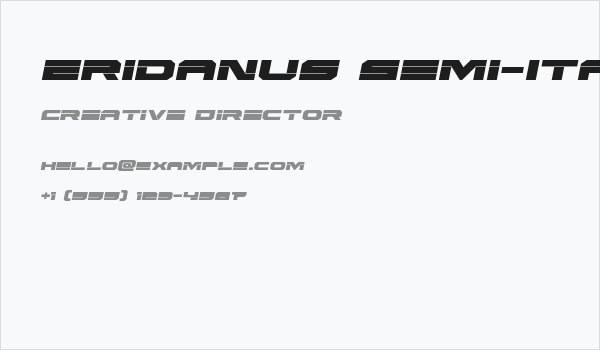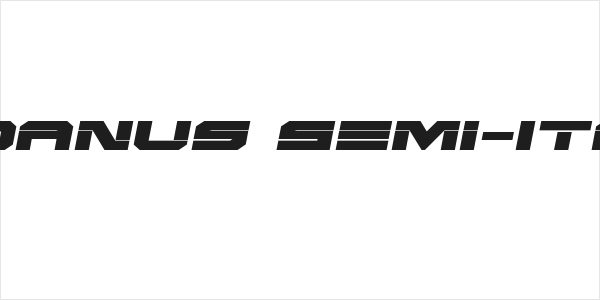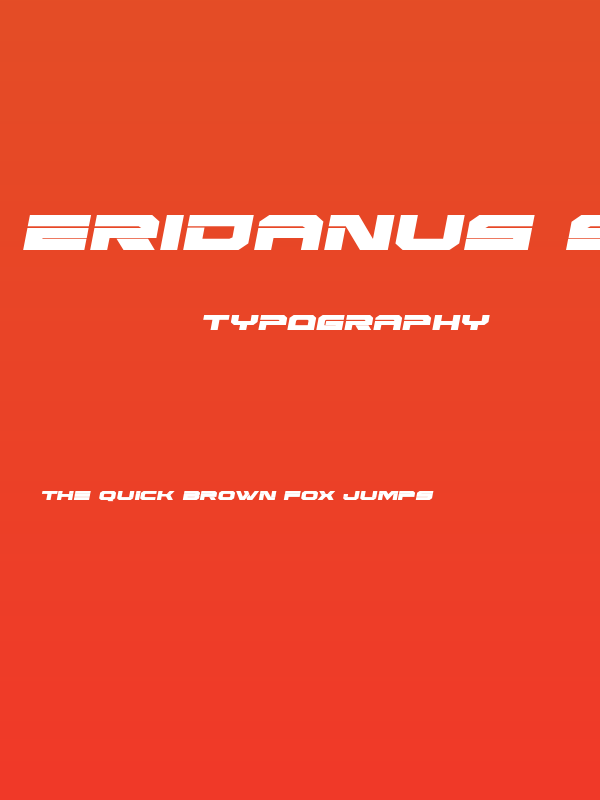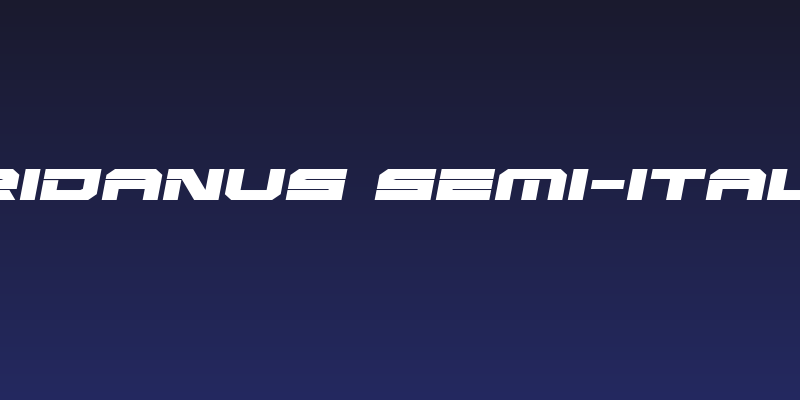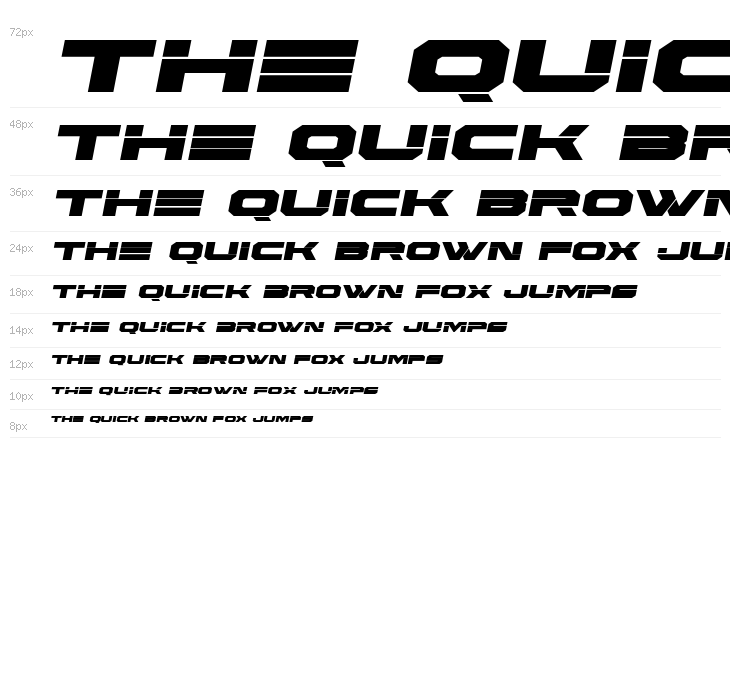
Eridanus Semi-Italic Font
Eridanus Semi-Italic Description
This font features a futuristic and angular design, characterized by sharp edges and a bold presence. The letters are slightly italicized, giving a sense of motion and dynamism. The geometric shapes and consistent line thickness contribute to a modern and sleek appearance. The numbers and special characters maintain the same stylistic elements, ensuring uniformity across all glyphs. This font is ideal for projects that require a strong and impactful visual statement.
| Proposed Projects | Ideal for sci-fi themed designs, technology branding, video game titles, and modern advertising. |